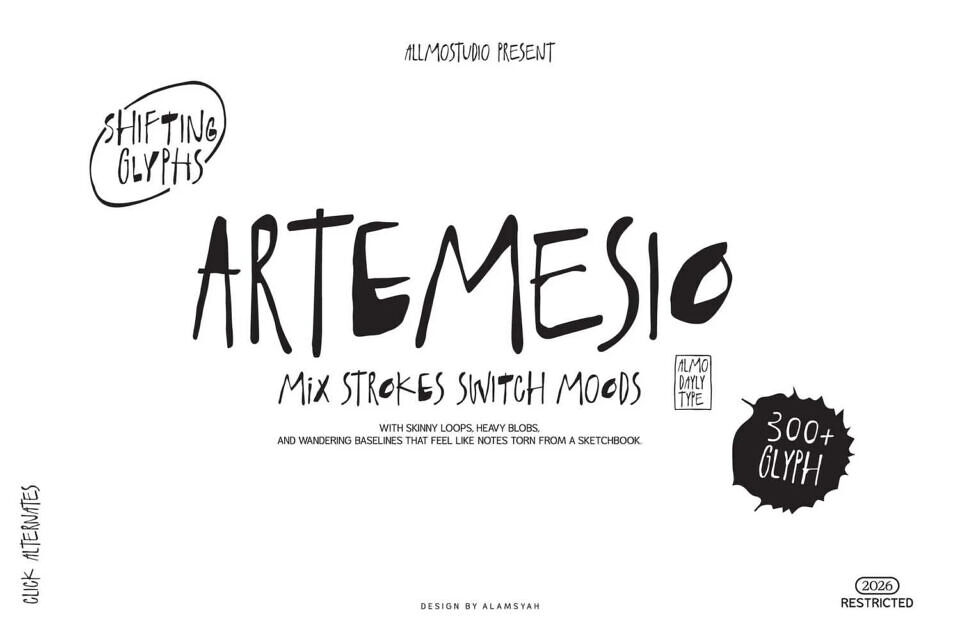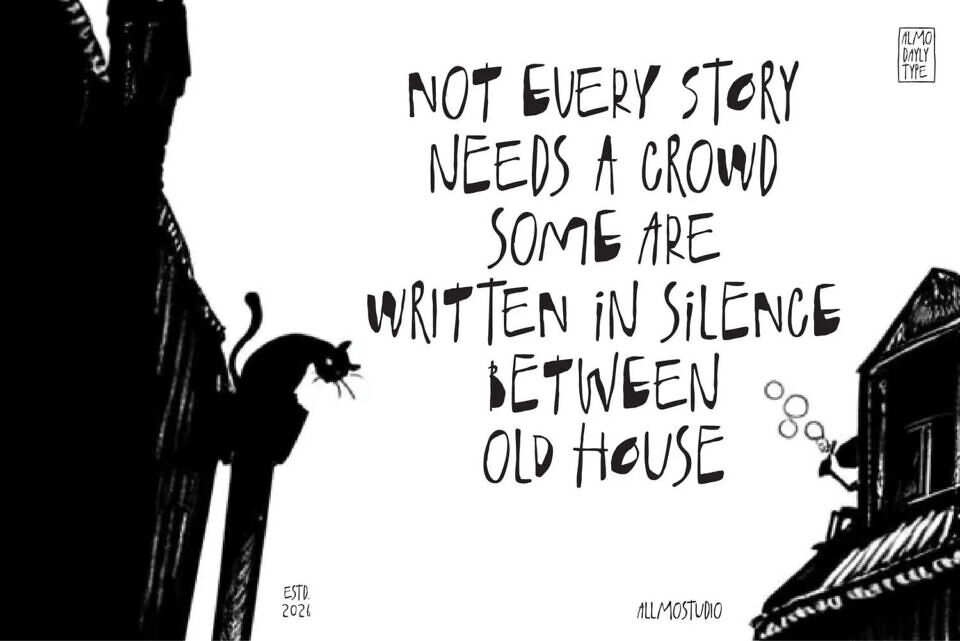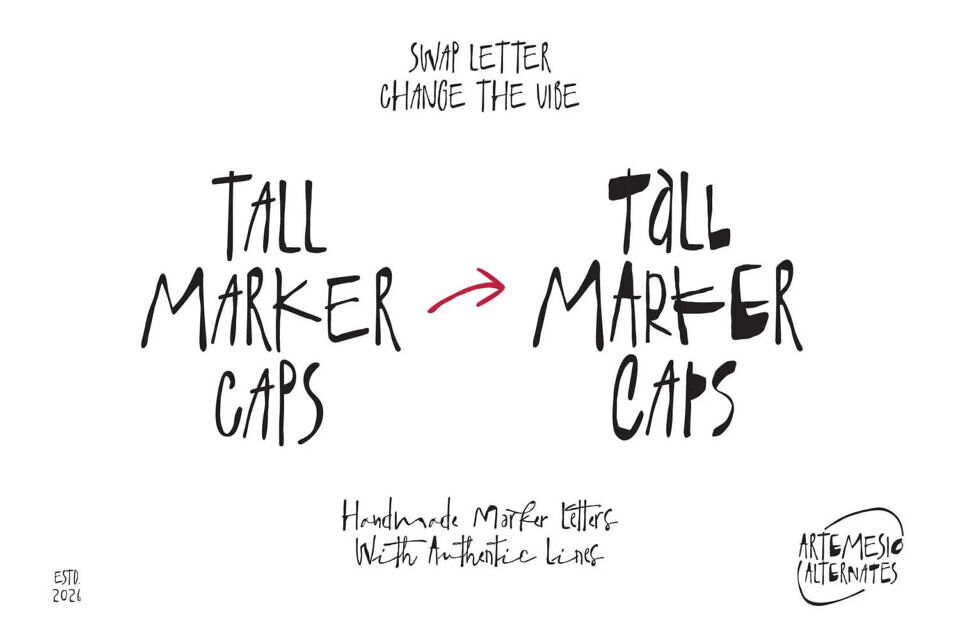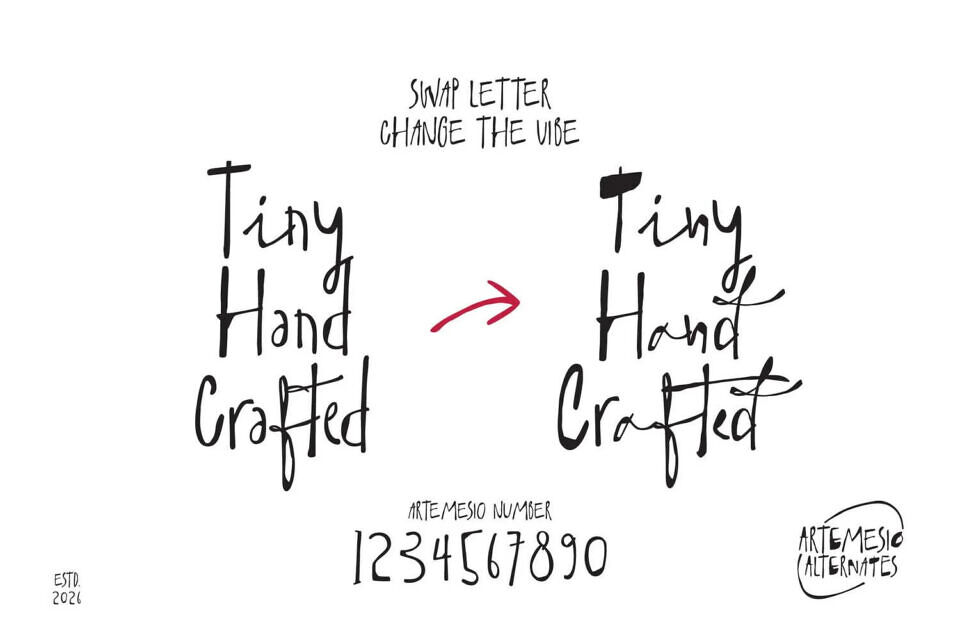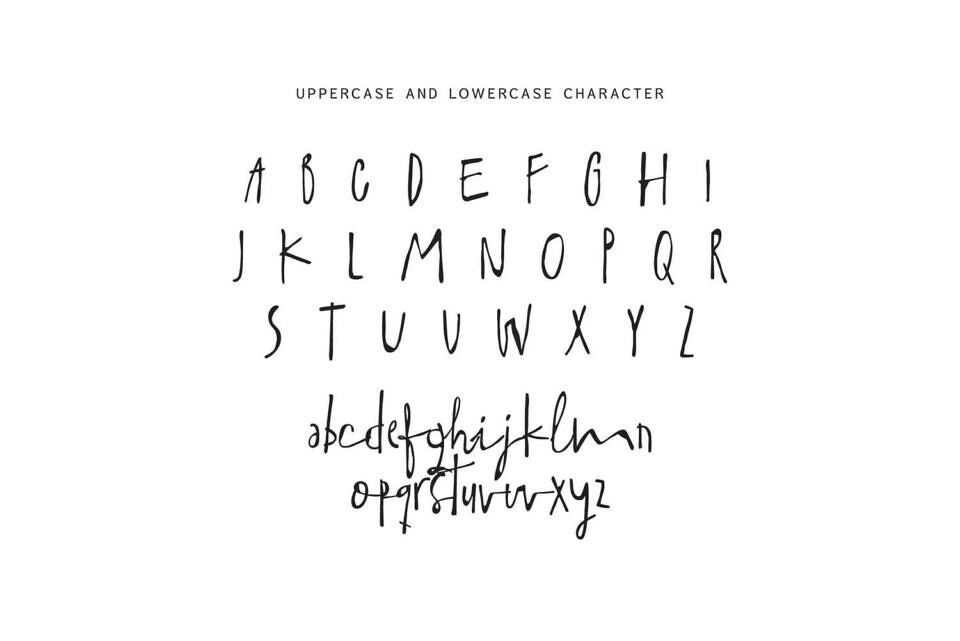
ARTEMESIO is a raw, hand-drawn font defined by its shifting glyphs and mixed-weight strokes, crafted to deliver a spontaneous, energetic, and authentic sketchbook look. It’s the perfect choice for posters, zines, artist branding, album art, and social media quotes that demand raw energy and a hand-drawn personality.
Its mix of skinny loops, heavy blobs, and a wandering baseline are designed to feel authentically imperfect and full of life, making it an essential typeface for creatives seeking a blend of sketchbook spontaneity and dynamic typographic expression.